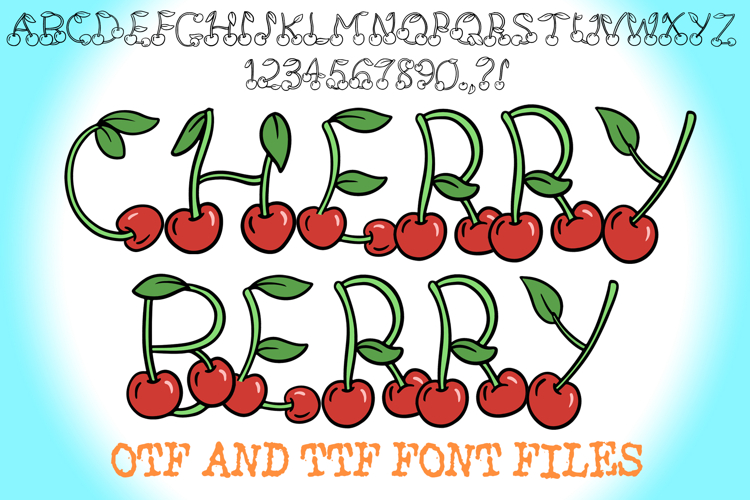
Cherry Berry Fruit Alphabet Lettering ABC Text Font OTFÂ illustration
A unique fruity style font where you can create your own words and colour them to your vision!